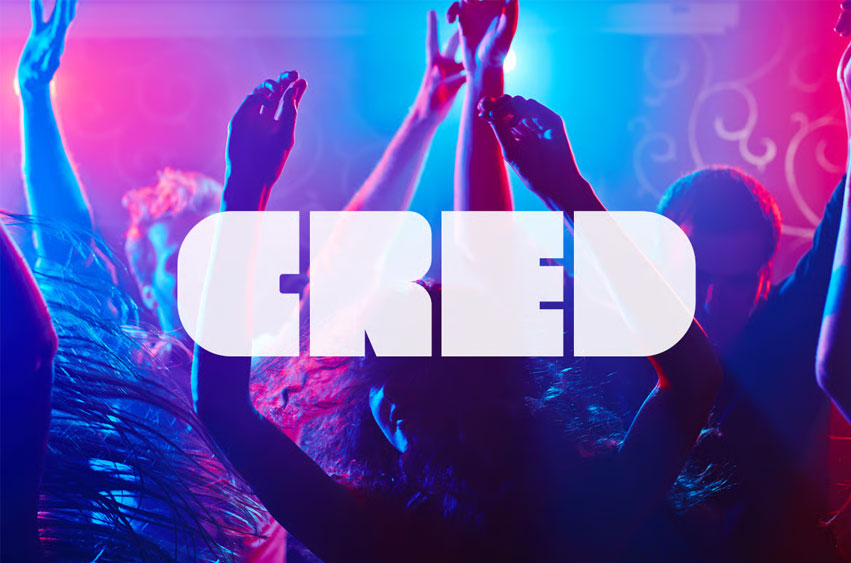
Cred Font
Cred Font is a unique fat typeface that includes multilingual uppercase letters, numbers and punctuation.
It comes in regular and corroded styles. I’ve found it great for urban/club/event flyers, quirky branding projects and ’80s styled graphics.